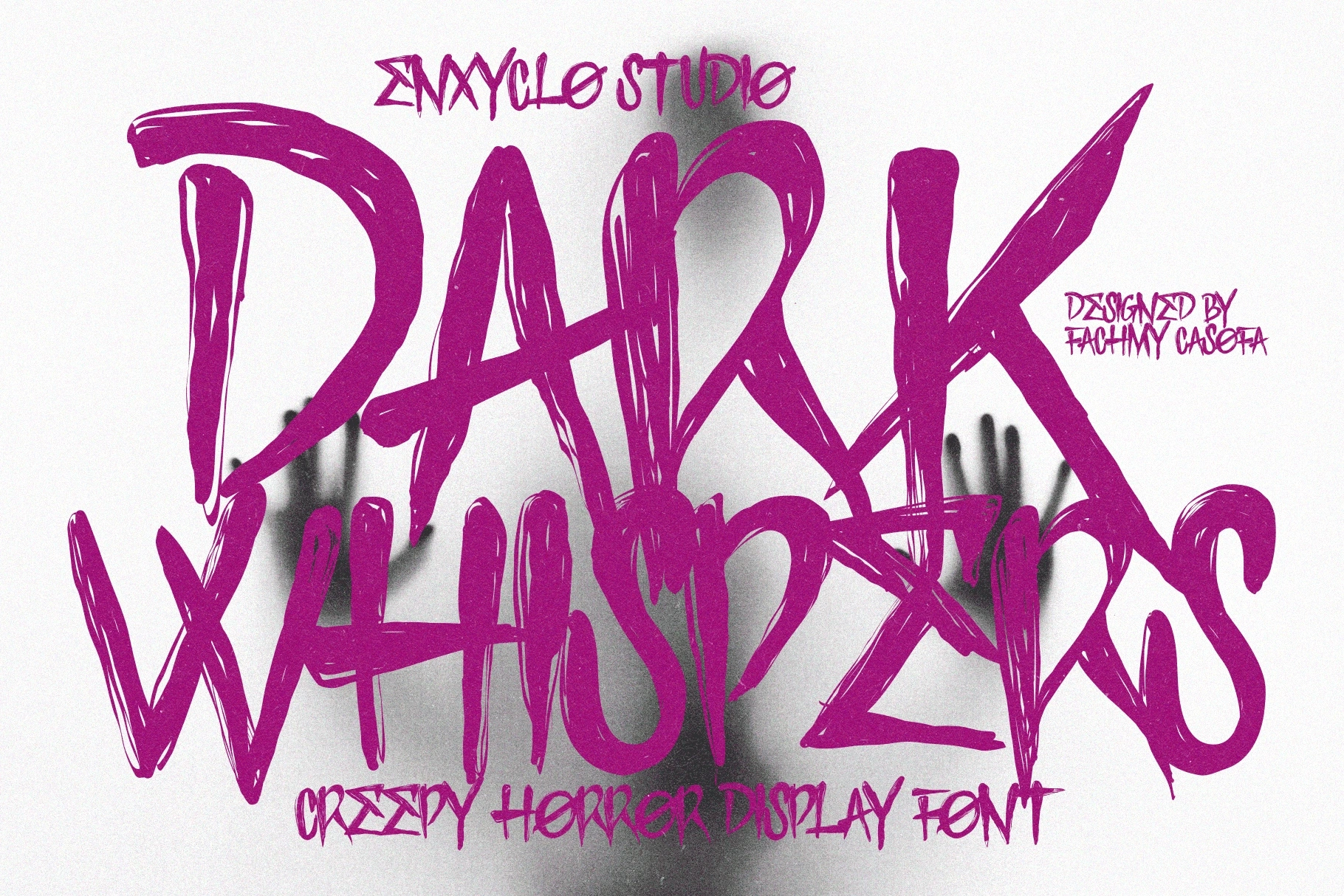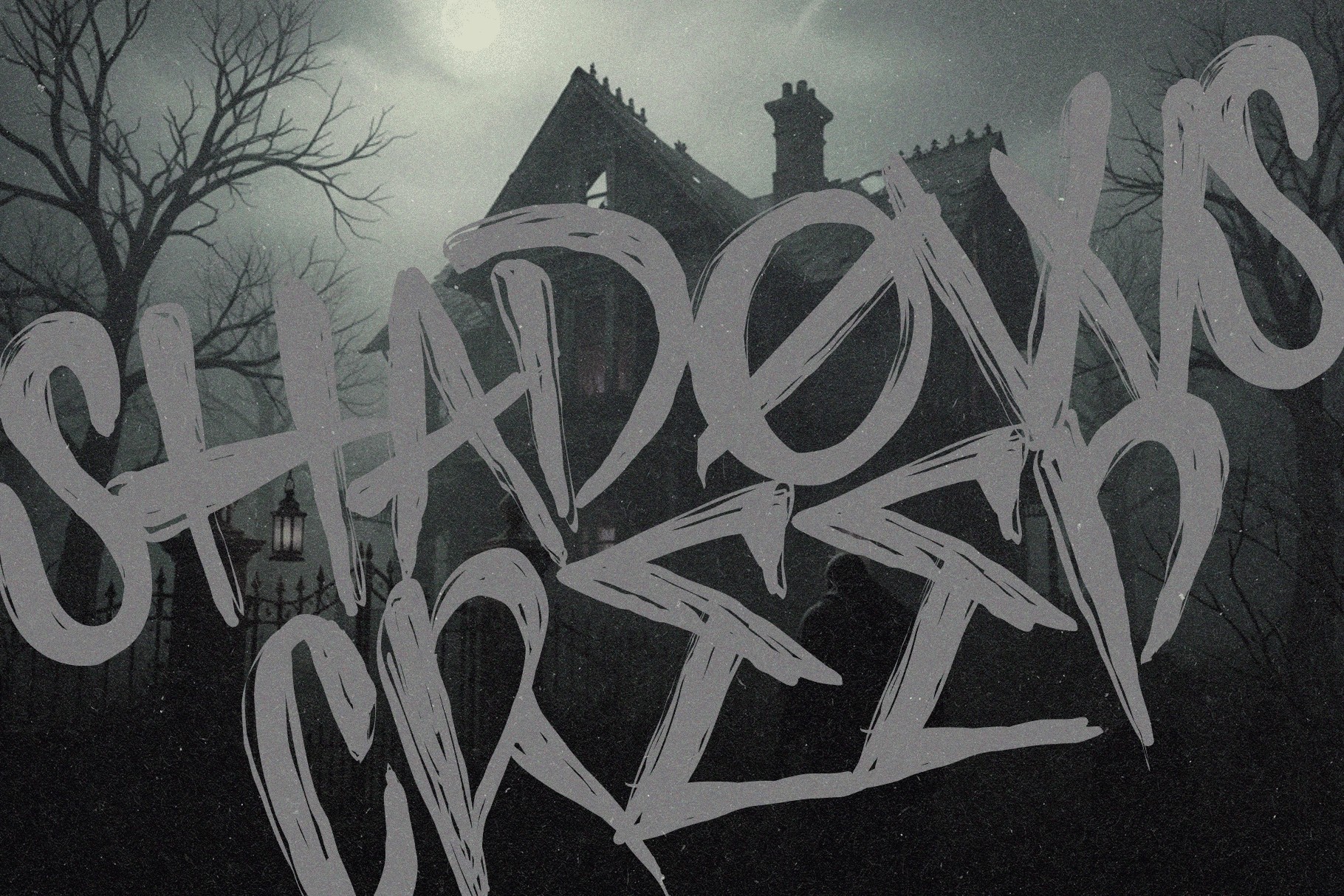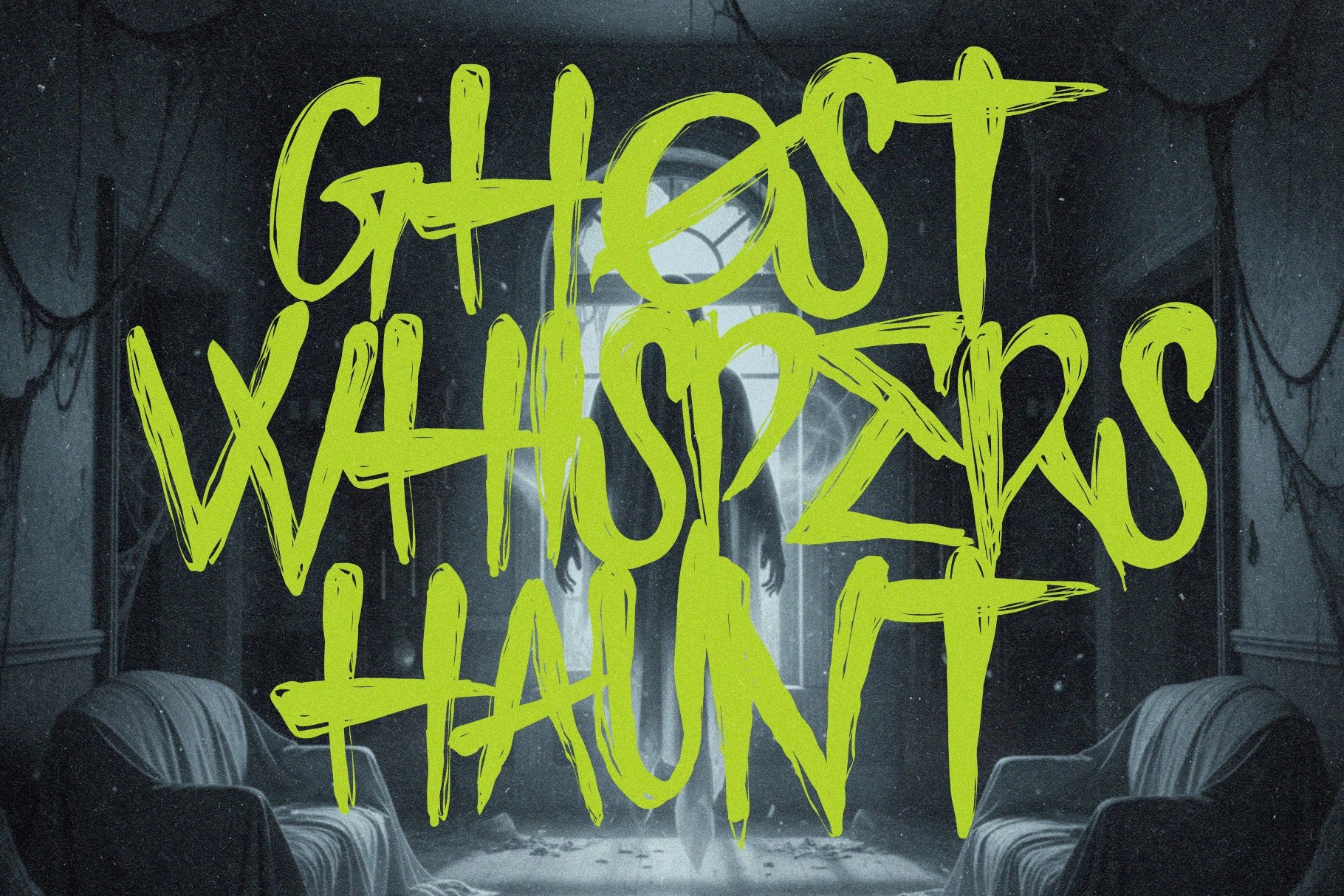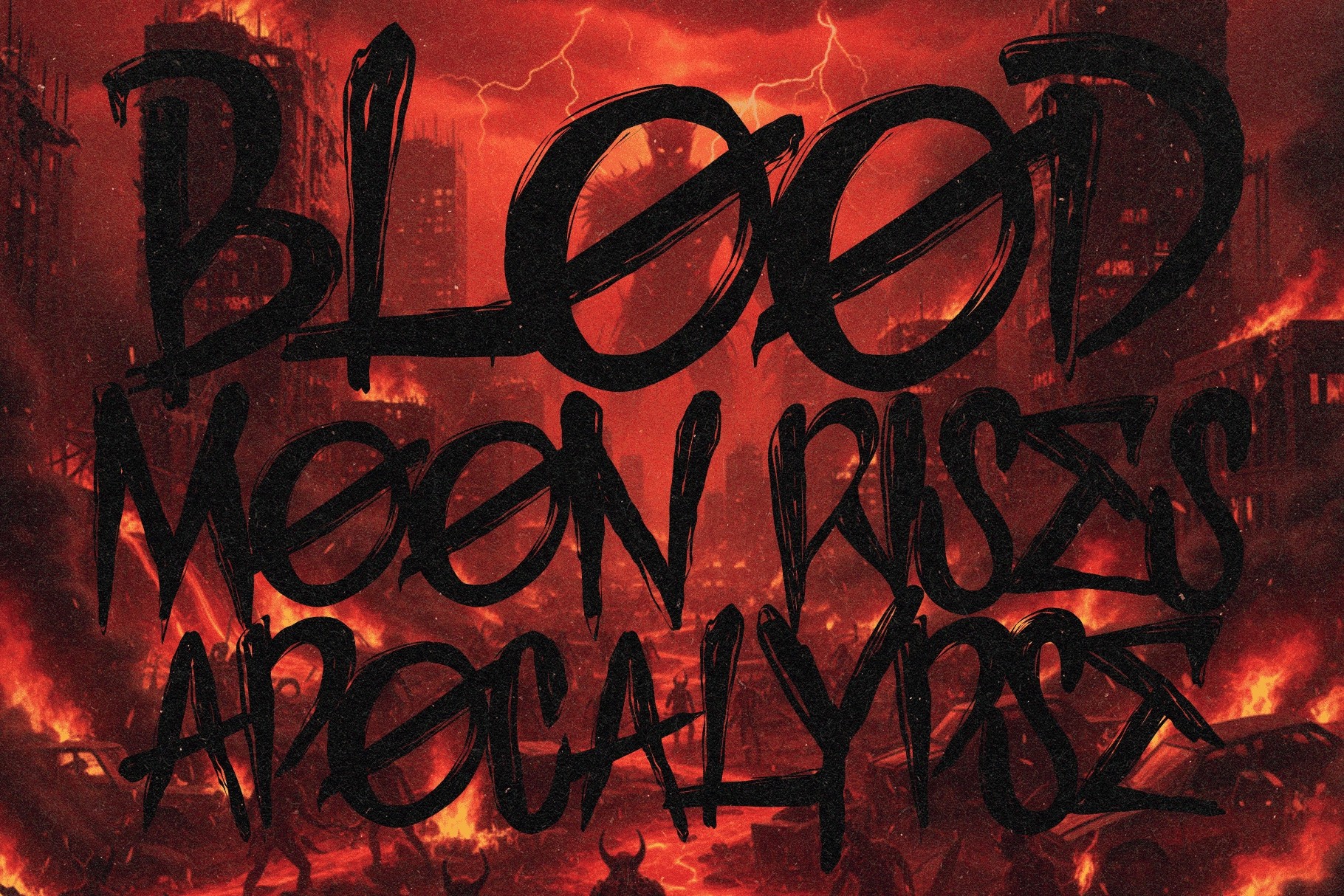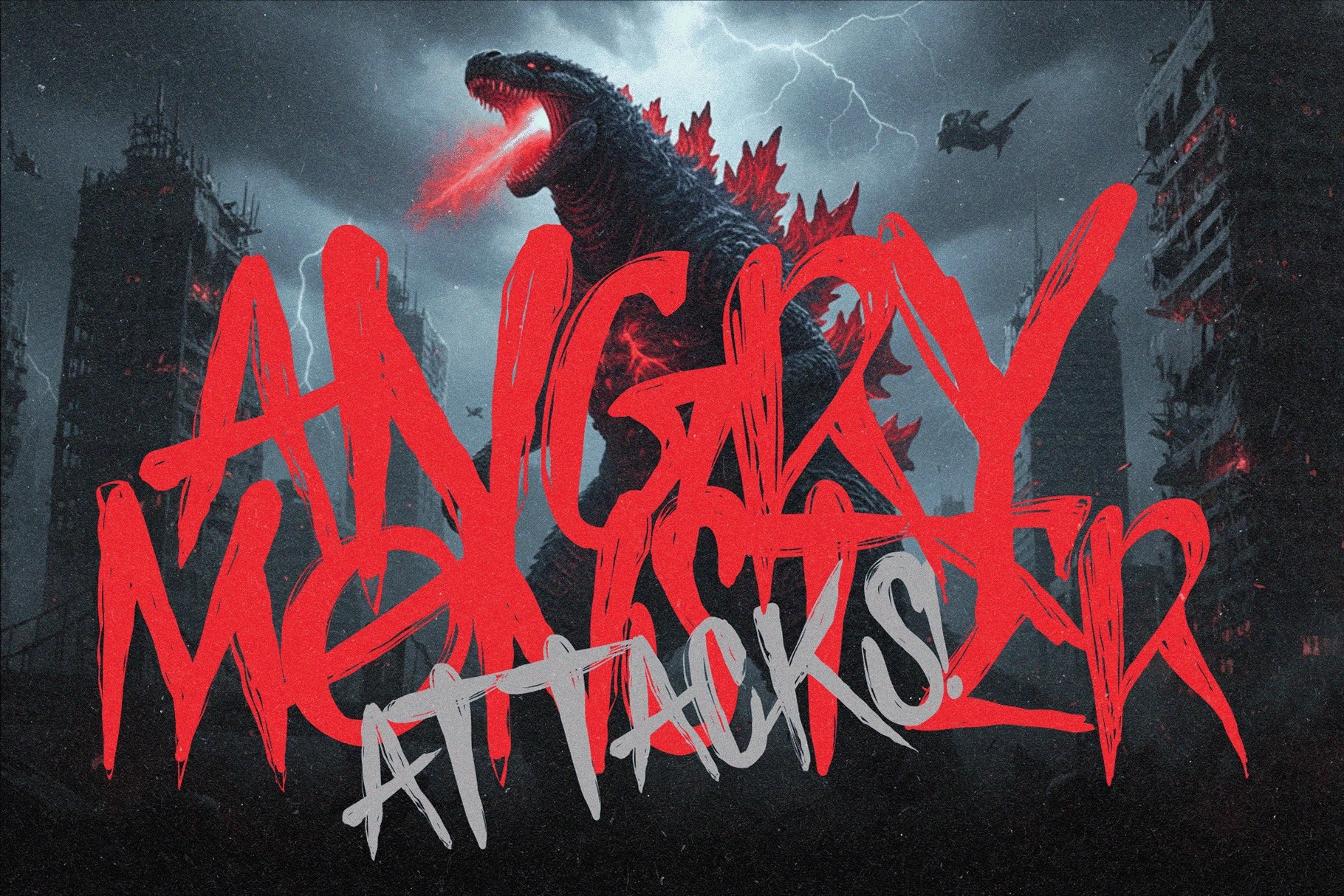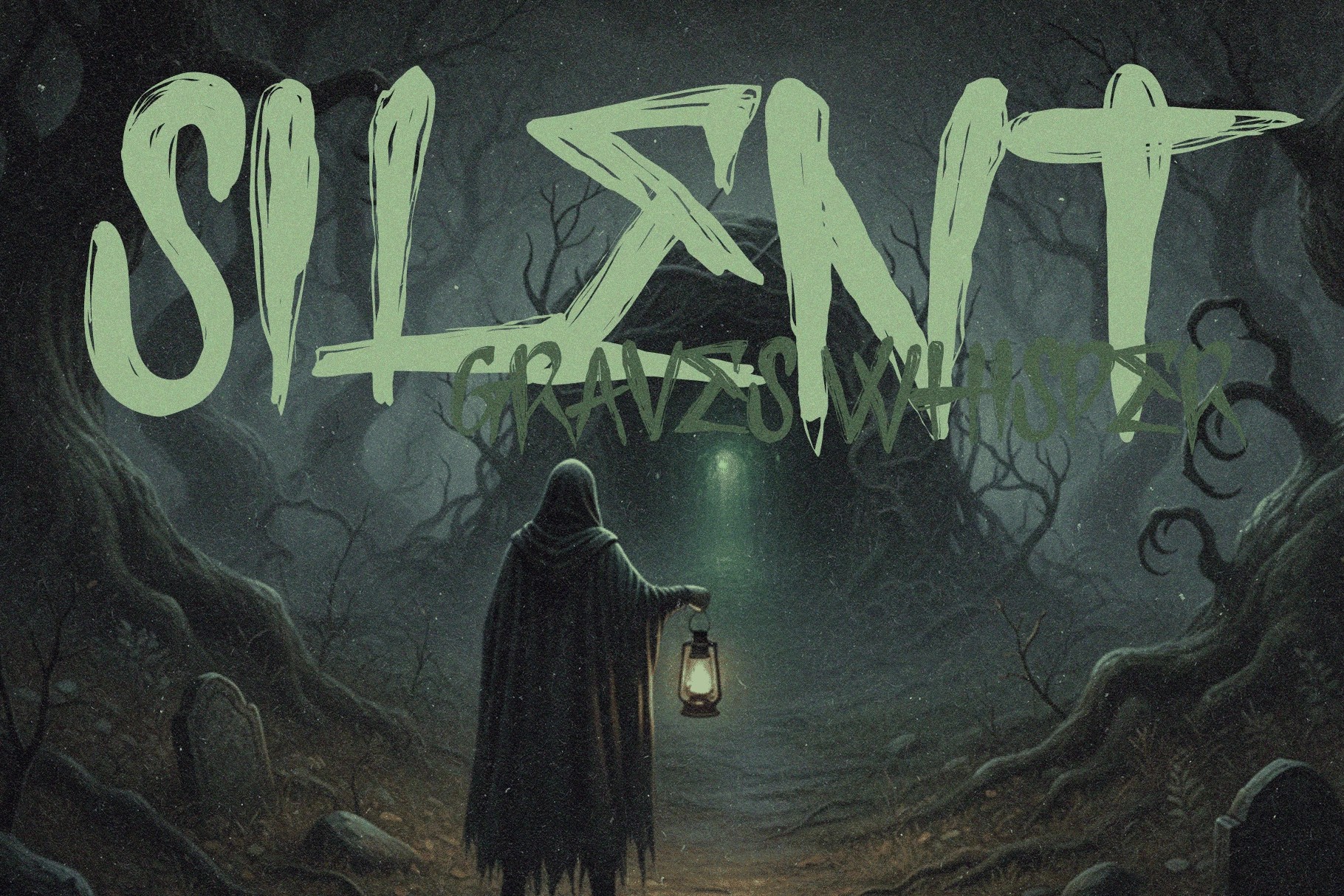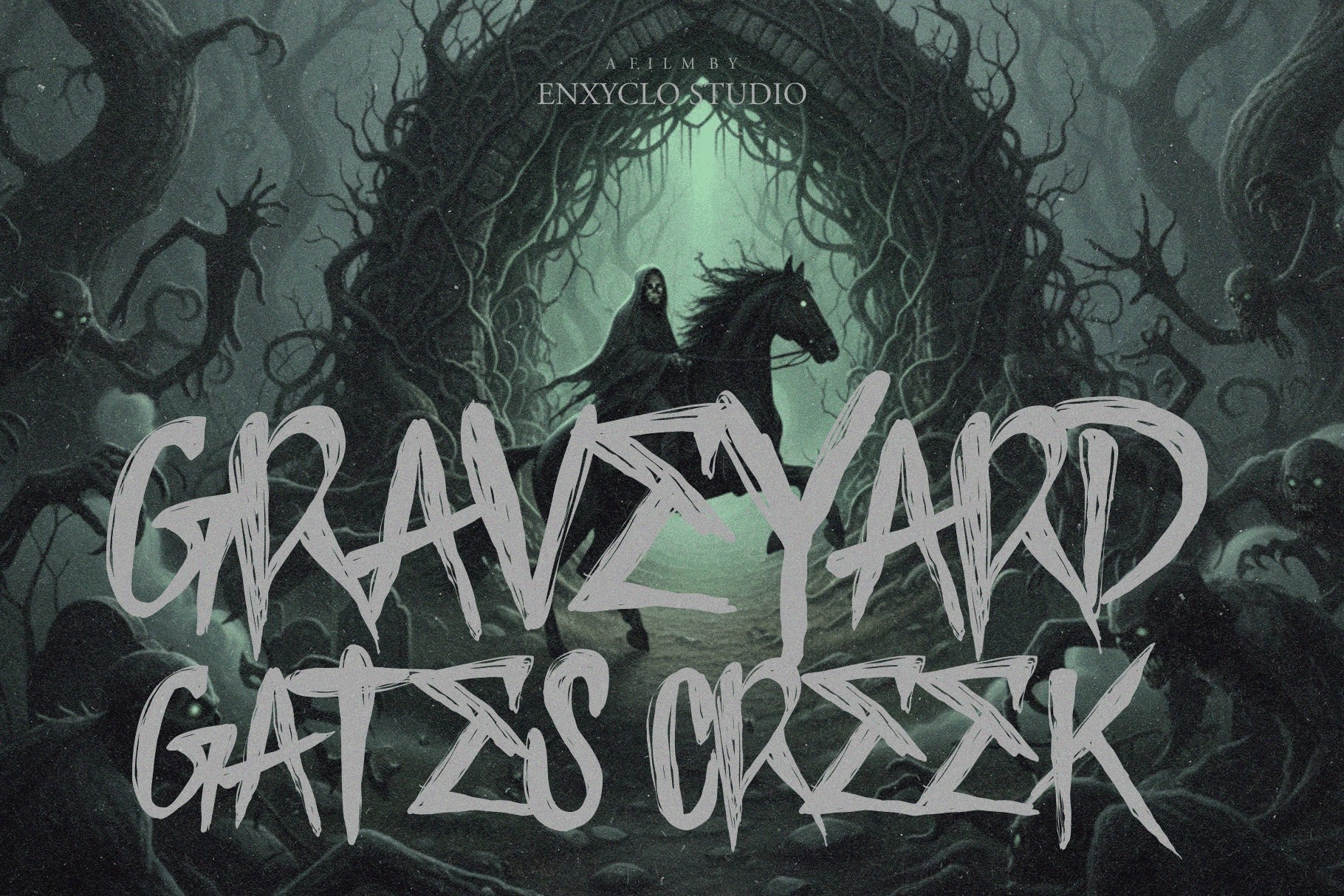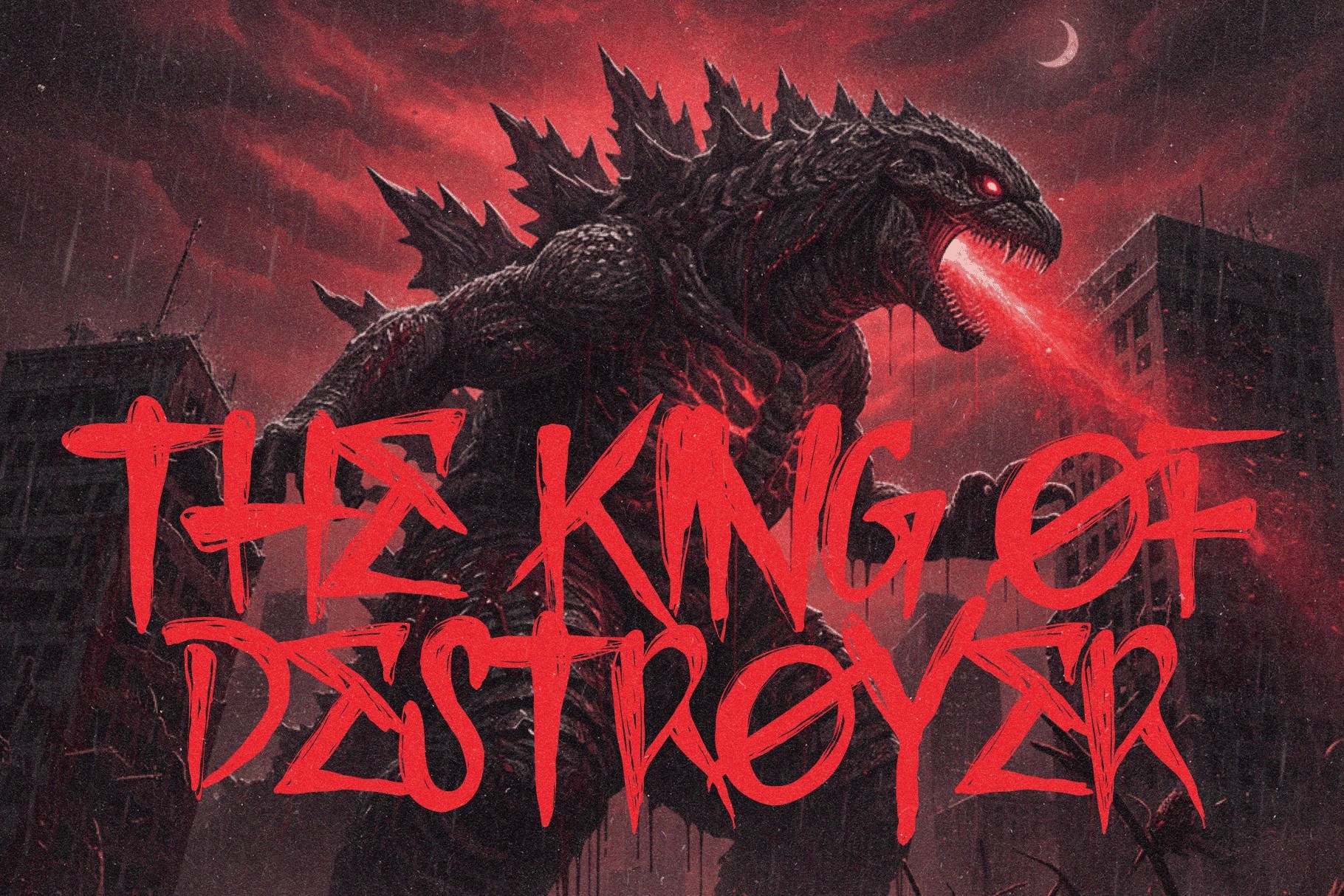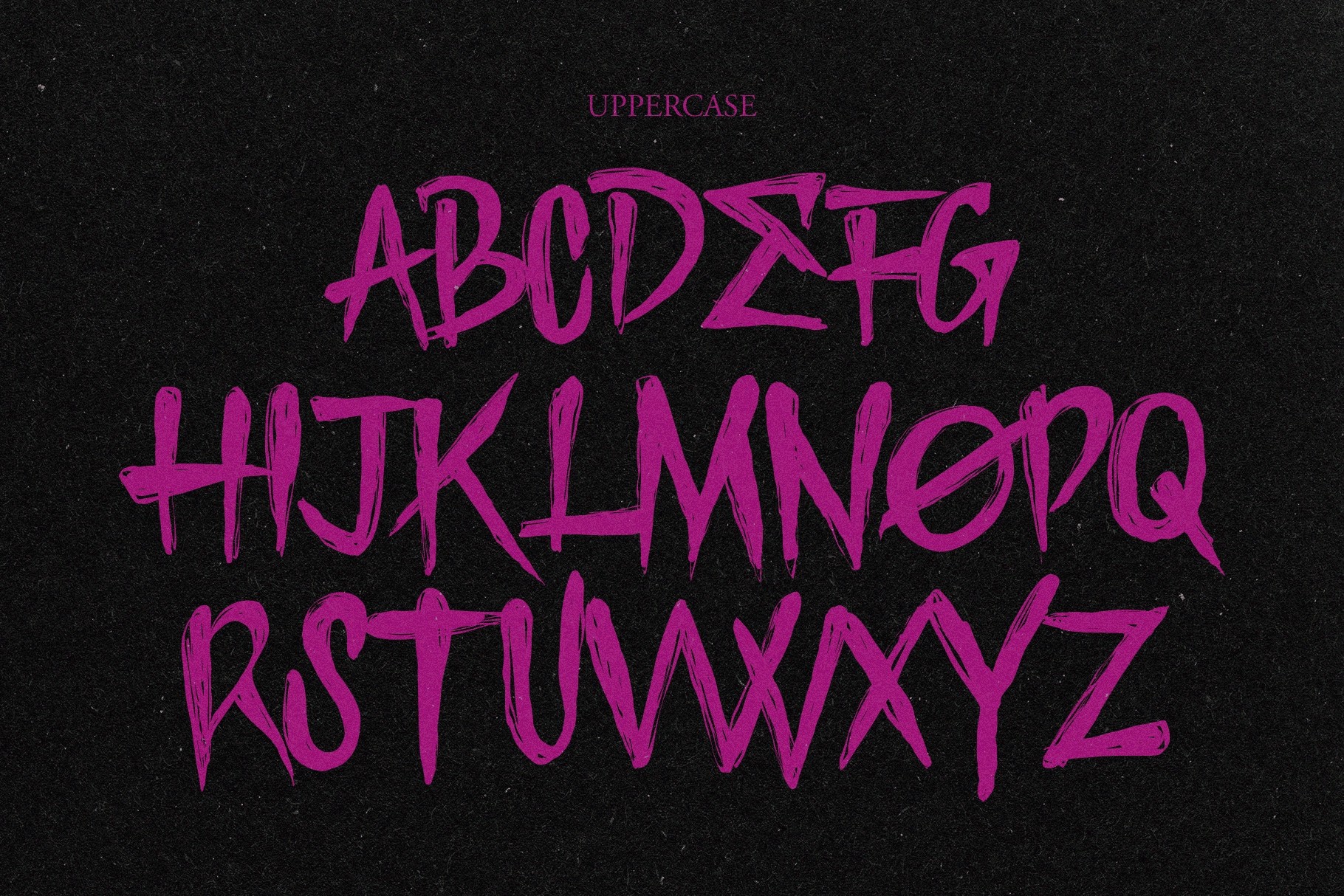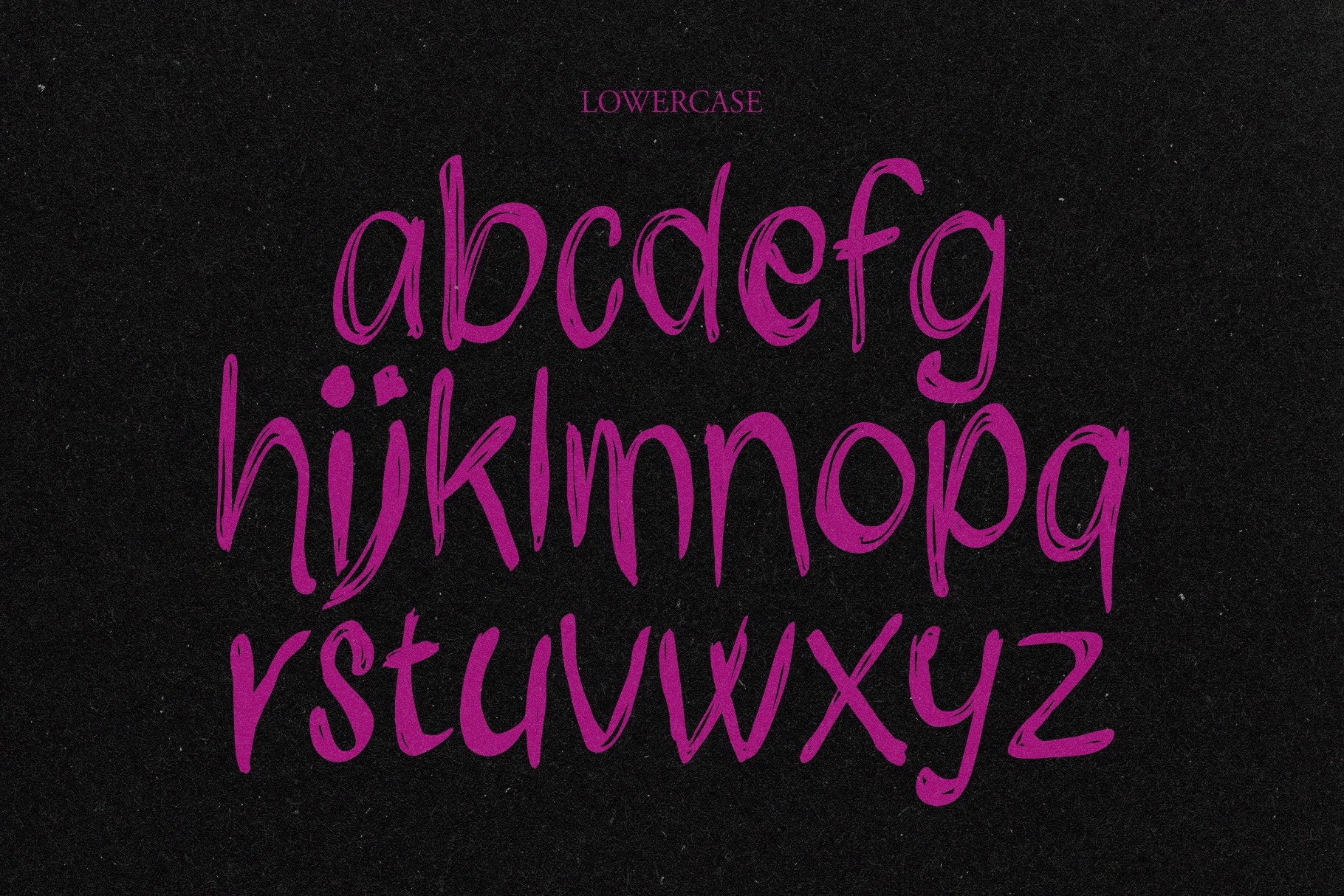
Dark Whispers - Scratch Creepy Display Font
Dark Whispers – Scratch Creepy Display Font is a bold horror-inspired display typeface designed to capture the unsettling atmosphere of classic thriller and horror visuals. Its rough, scratched letterforms and chaotic strokes create a disturbing handwritten style that feels eerie, raw, and intense—perfect for designs that demand a dark and haunting presence.
Built for dramatic headlines and chilling visuals, Dark Whispers works perfectly for horror posters, Halloween graphics, thriller book covers, and dark-themed branding. The expressive, scratch-like characters deliver a creepy personality while remaining readable enough to create powerful and memorable typography.
• Numerals & Punctuation
• Symbols